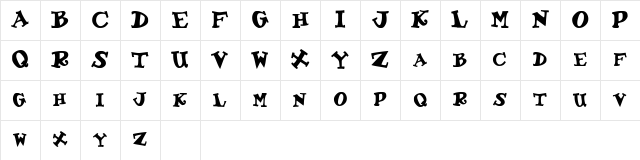
TooCoolSCapsSSK Bold Free Font
TooCoolSCapsSSK Bold
TooCoolSCapsSSK Family
Design Context for TooCoolSCapsSSK
TooCoolSCapsSSK is a composed and adaptable typeface that performs quietly and consistently across a wide range of design contexts. Its bold stroke weight gives it real presence on the page.